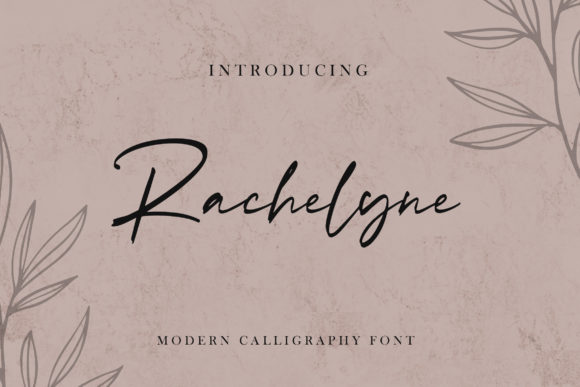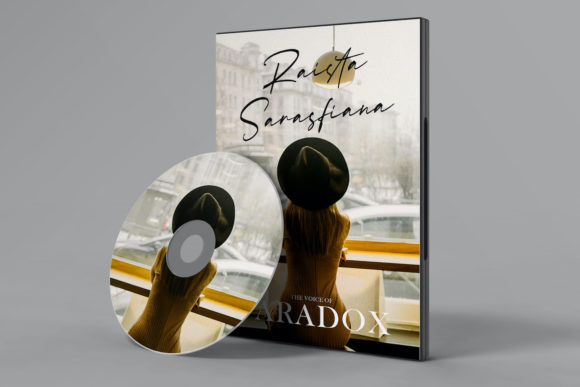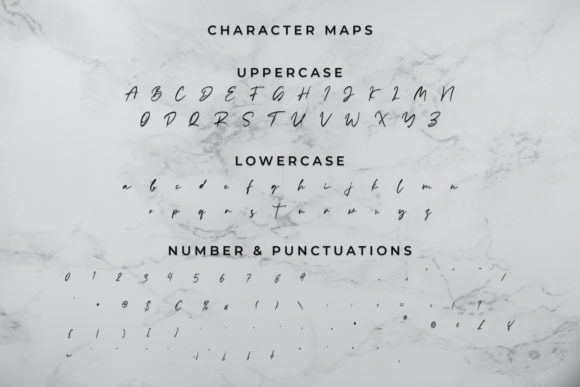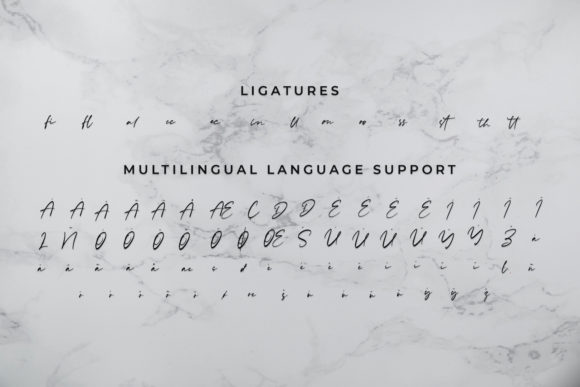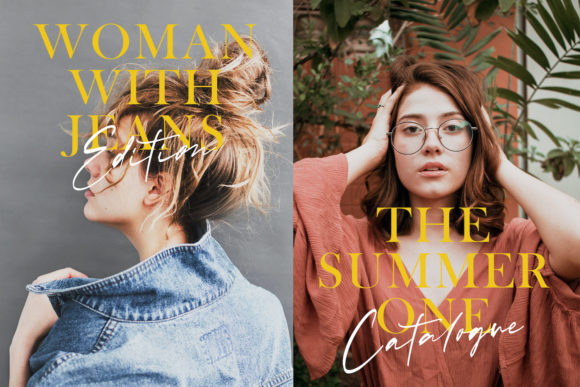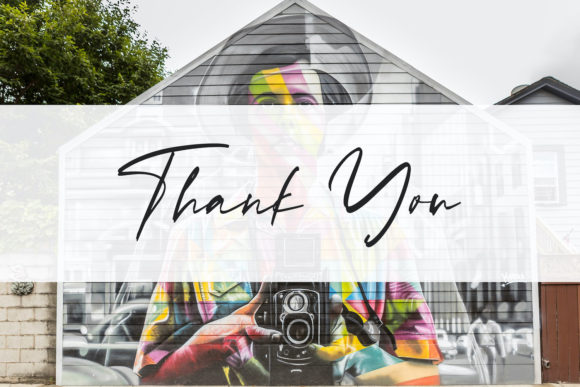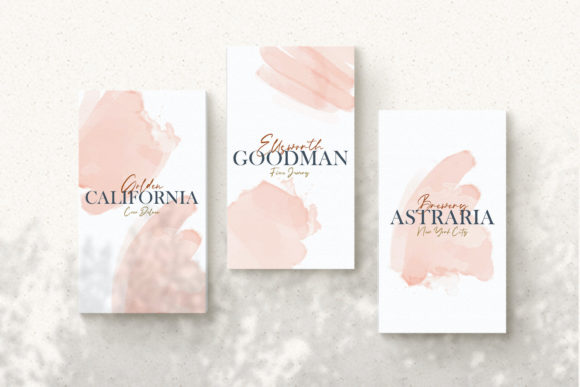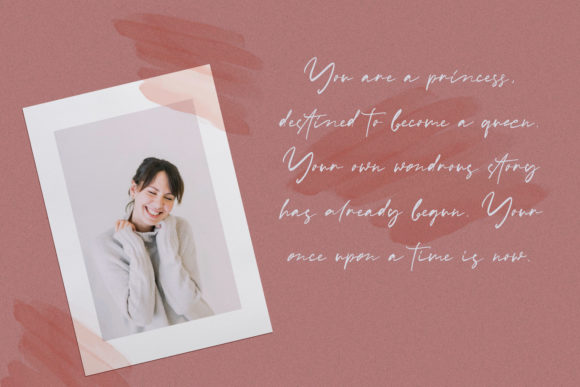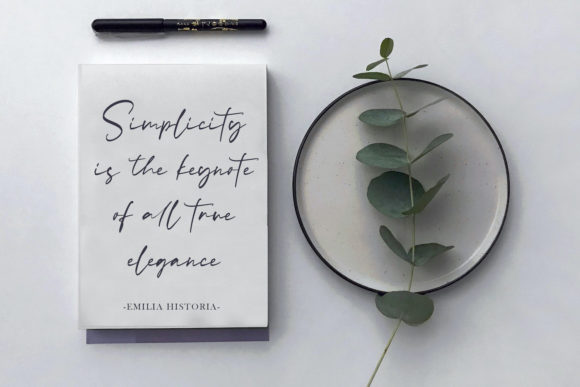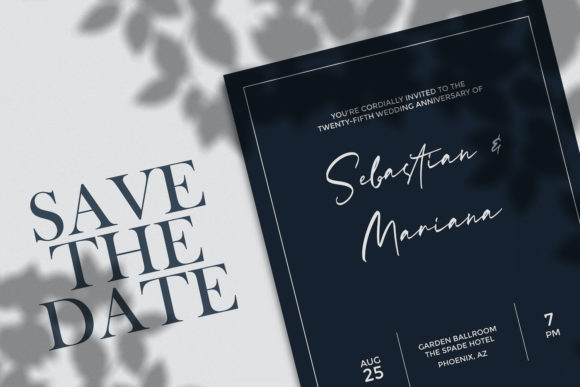
Rachelyne Font
About Rachelyne Font
Rachelyne is a friendly and elegant handwritten font. It will elevate a wide range of design projects to the highest level, be it branding, headings, wedding designs, invitations, signatures, logos, labels, and much more!